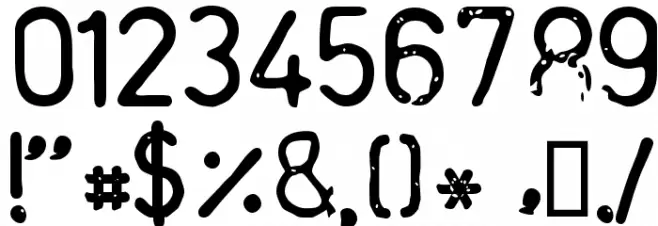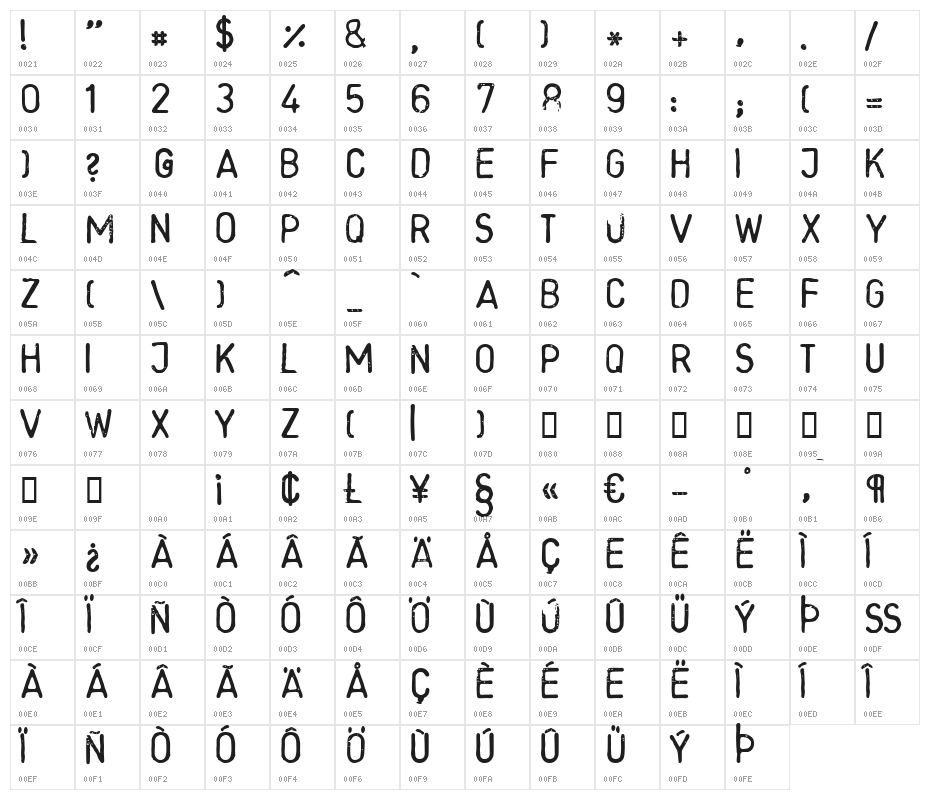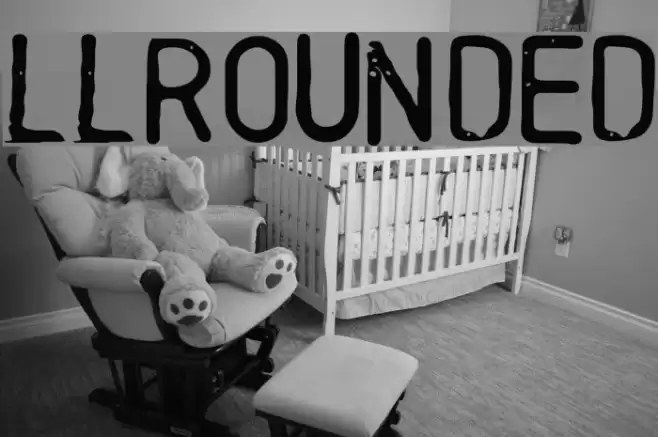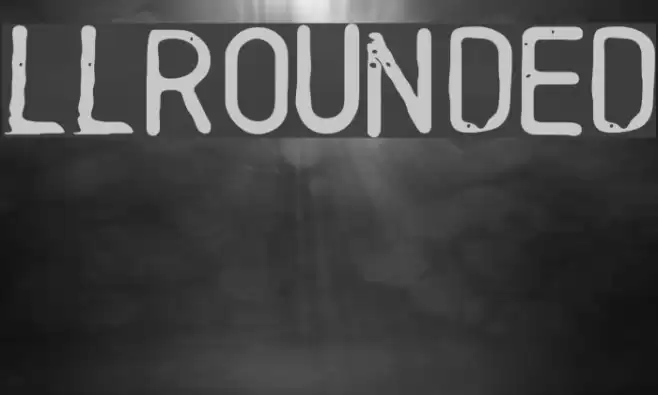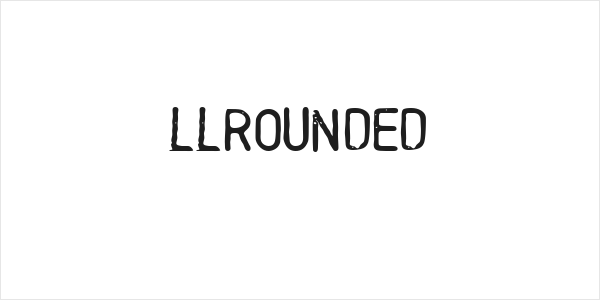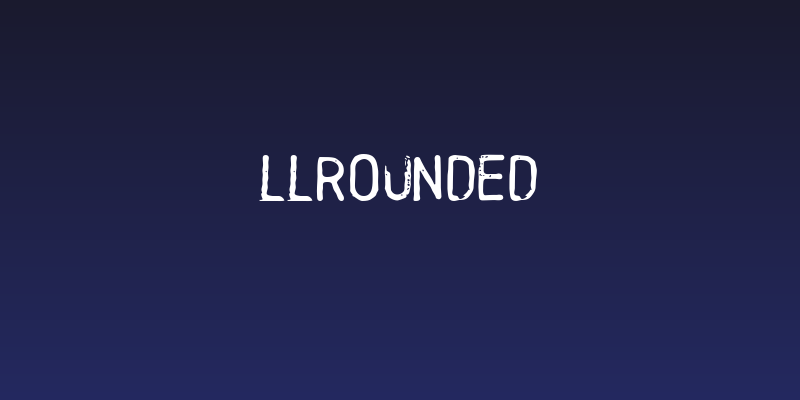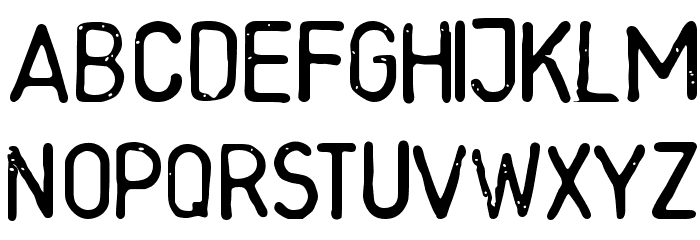
LLRounded Font
LLRounded Description
This font features a distinctive, rounded style with a slightly distressed texture, giving it a unique, handcrafted appearance. The characters are bold and have a consistent width, making them easily legible while maintaining a playful and informal aesthetic. The rounded edges soften the overall look, adding a friendly and approachable feel. The numbers and special characters follow the same design principles, ensuring uniformity across all elements. This font's quirky and artistic vibe makes it stand out, suitable for creative projects that require a touch of personality.